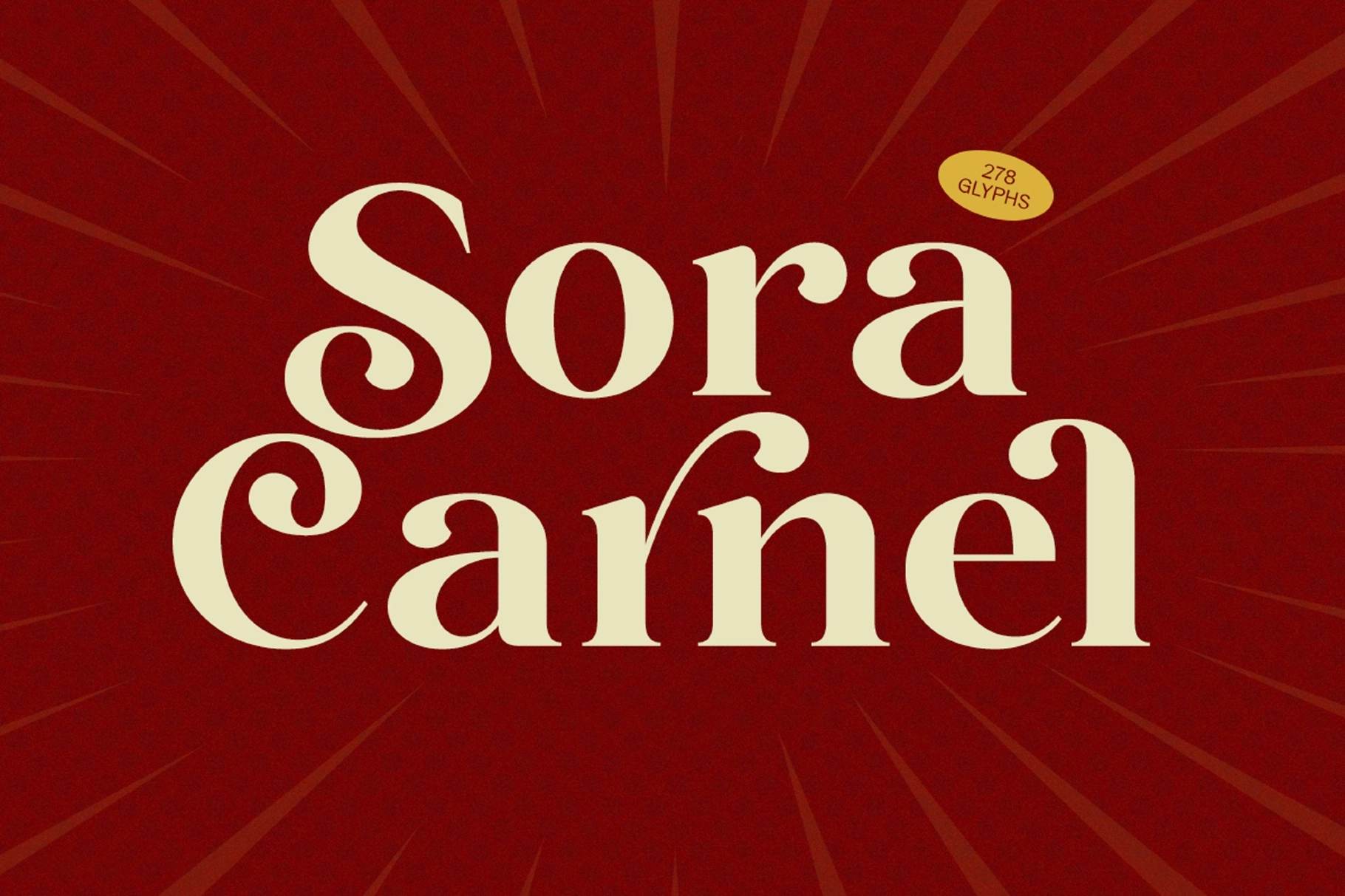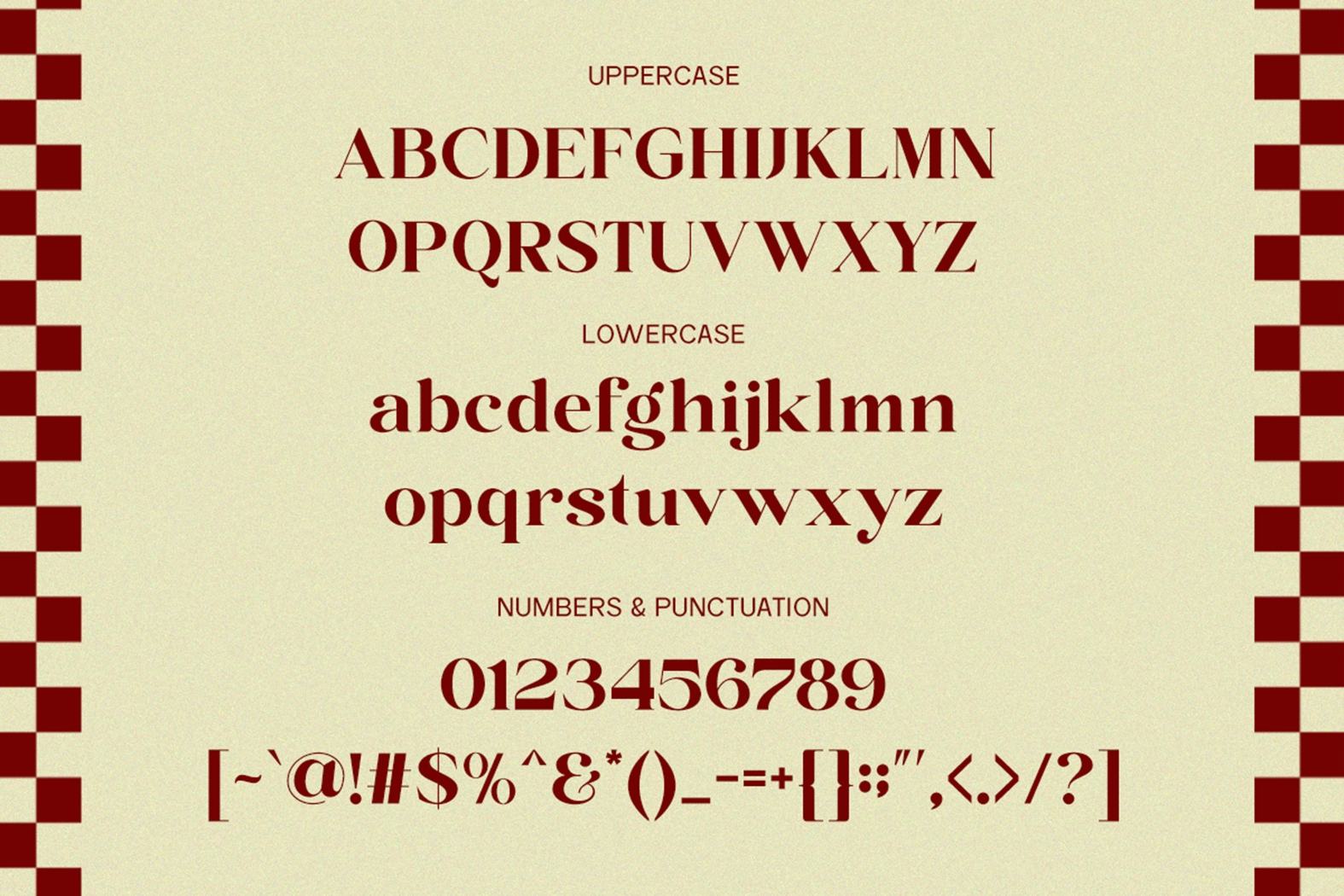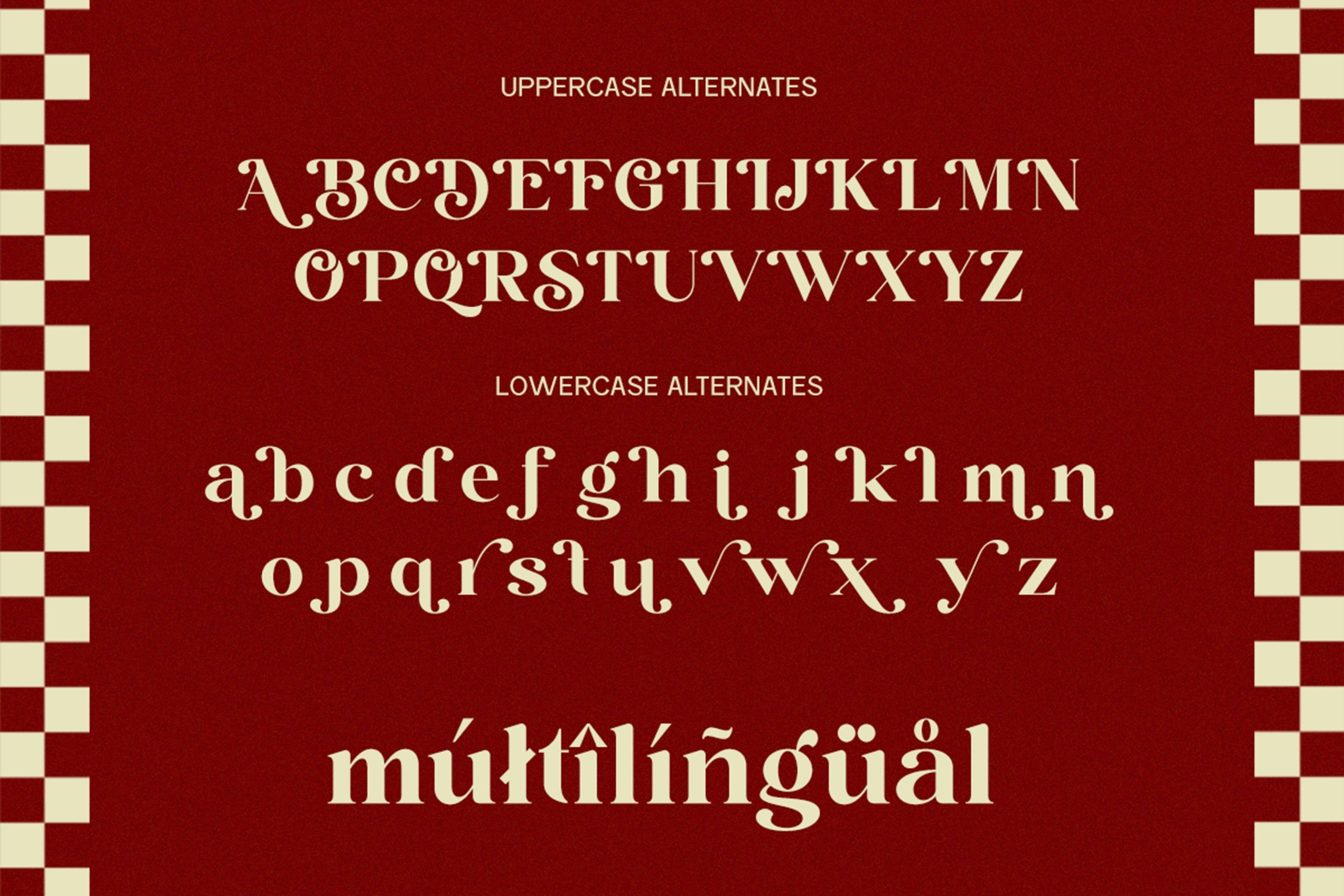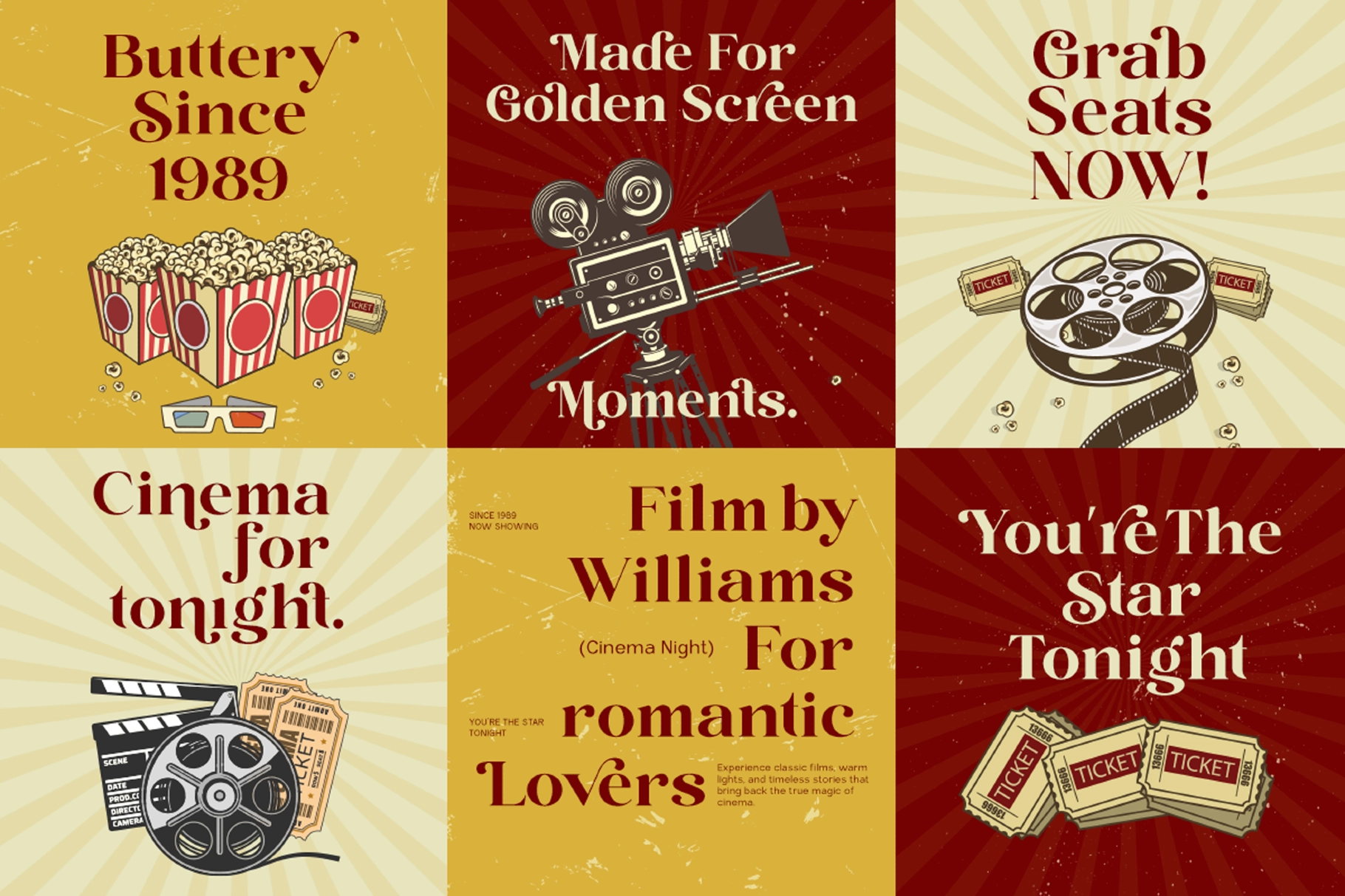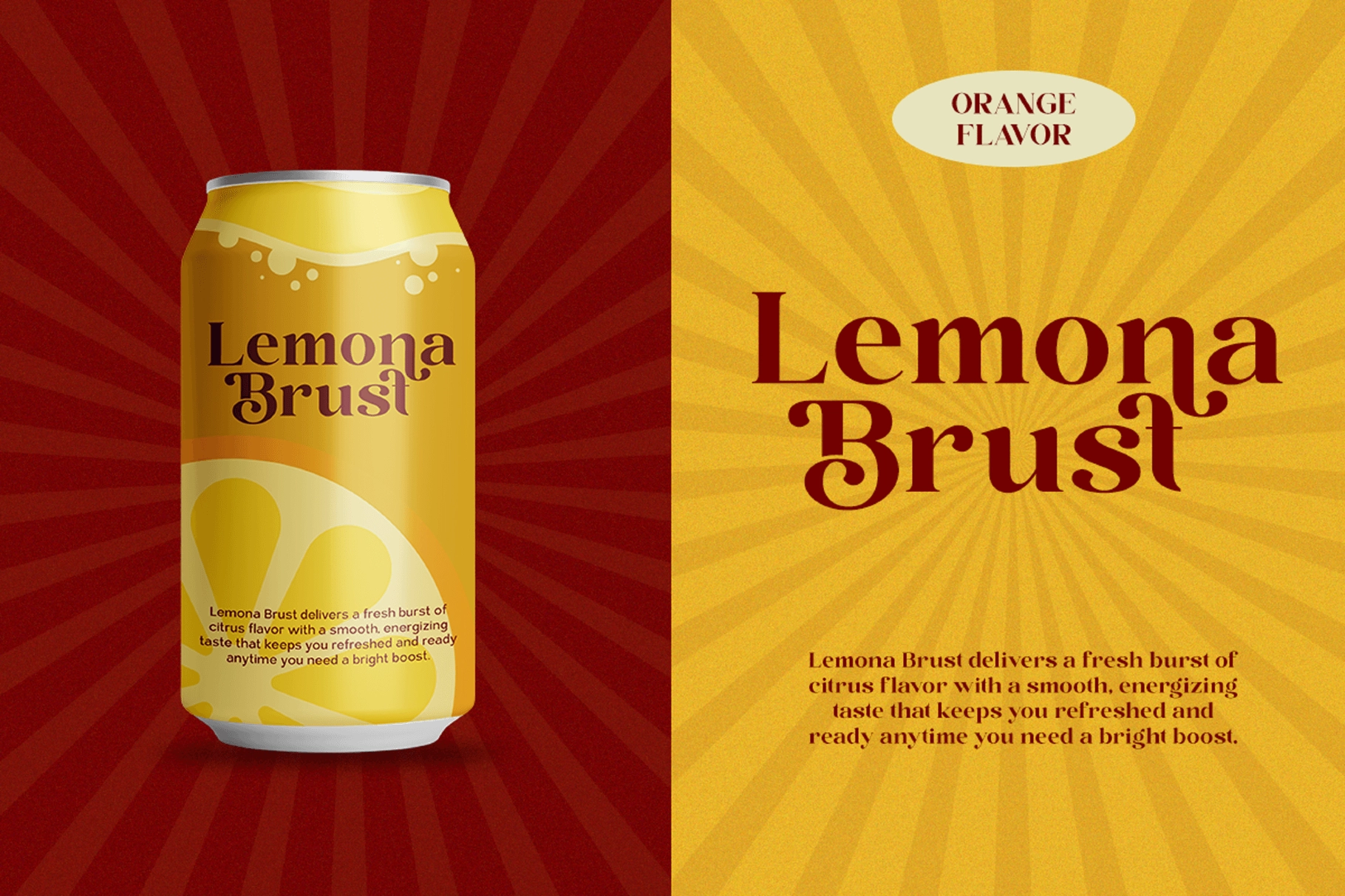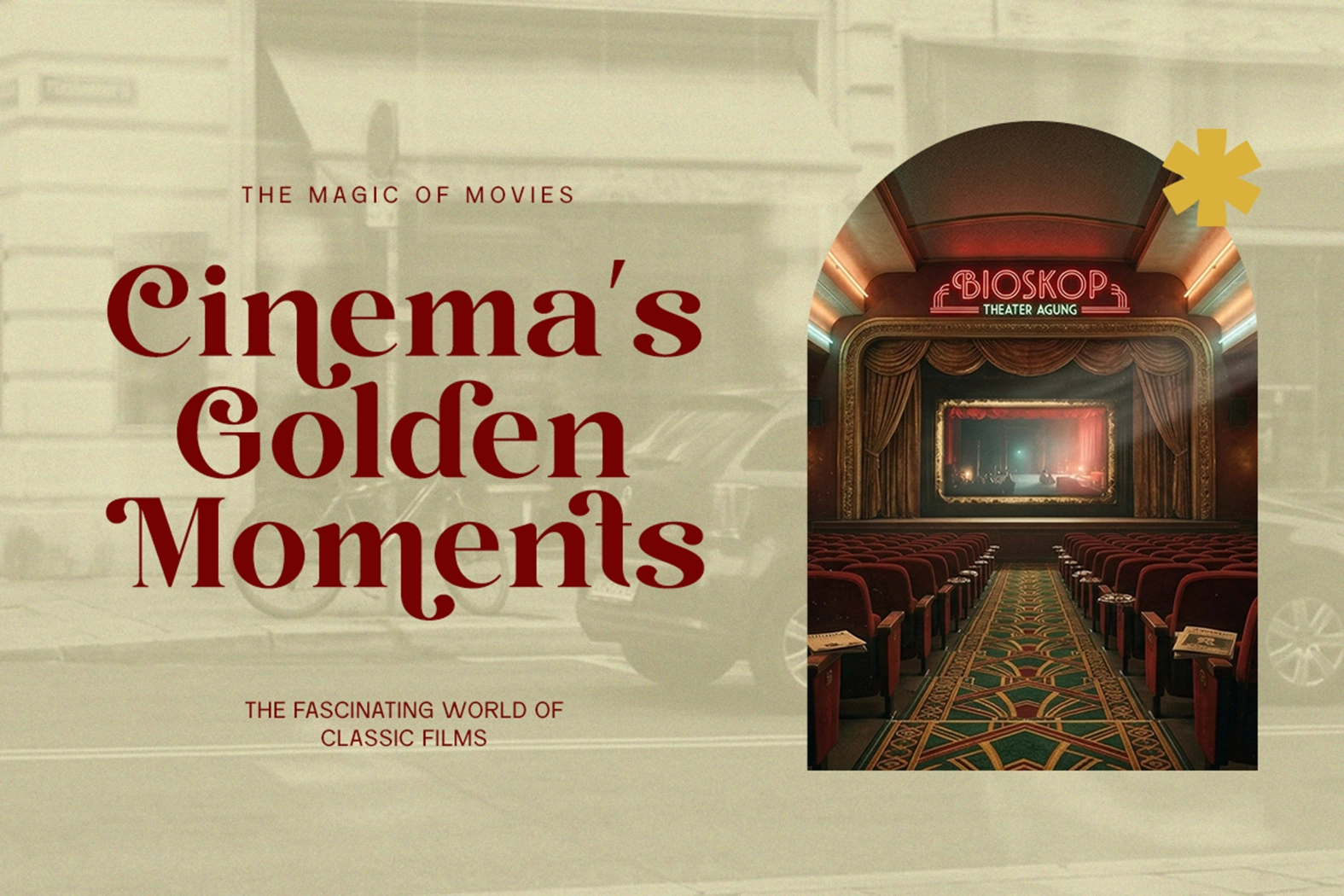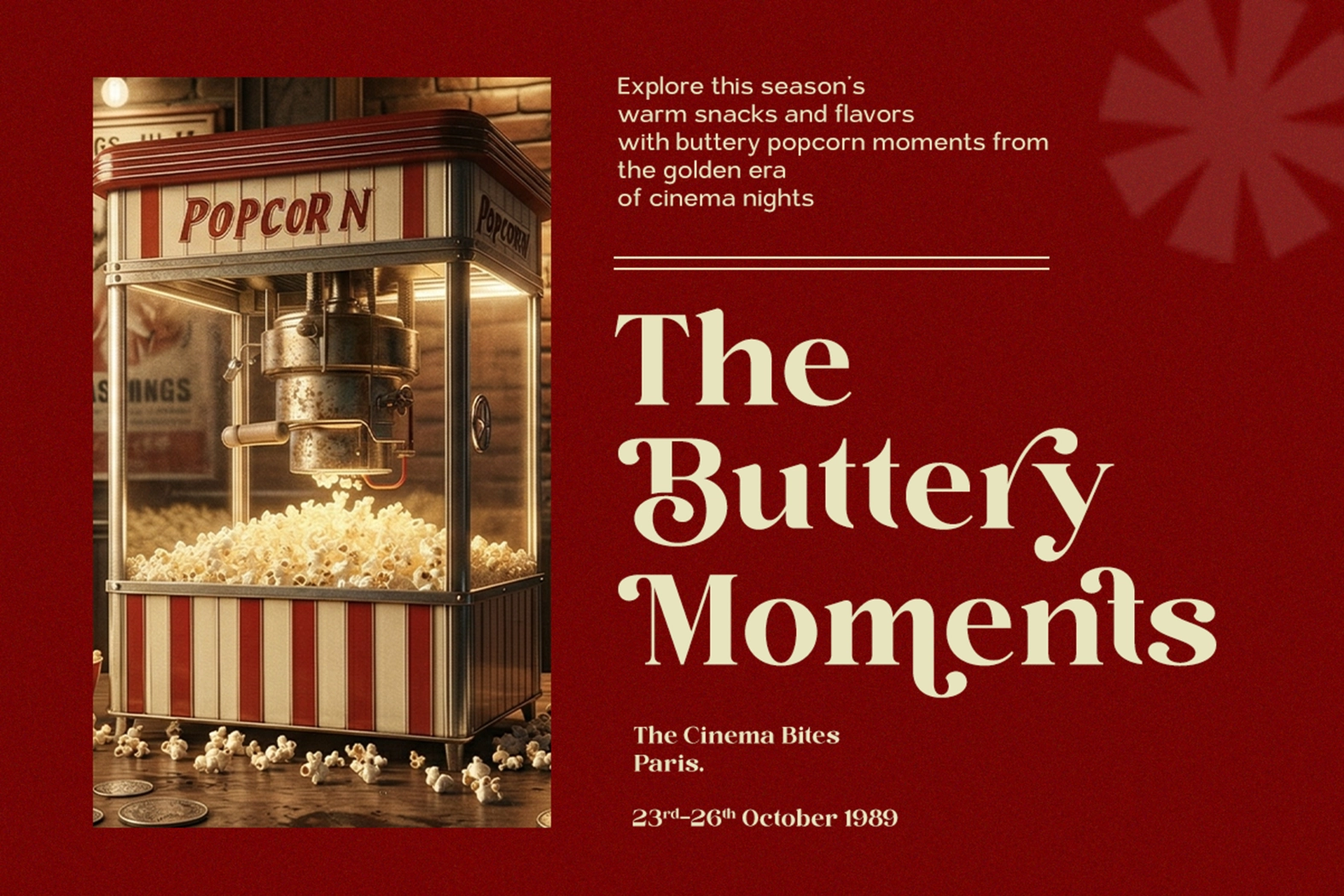
Sora Carnel - Retro Serif Font
This retro serif font is full of cinema-era charm , with bold curves, curled terminals, and high-contrast letterforms that bring instant character to a layout. It has an expressive, polished voice that suits statement typography without losing clarity. The alternates add extra flair, giving headlines, logos, and short-form copy a decorative edge with clear editorial appeal.
Sora works beautifully for branding, poster design, product packaging, magazine covers, restaurant menus, social media quotes, event invitations, film-inspired graphics, book covers, title cards, apparel prints, signage, and more. It is a strong pick for projects that call for nostalgic typography with a graceful attitude, especially when the text needs to look sharp, memorable, and a little theatrical.
- Alternates